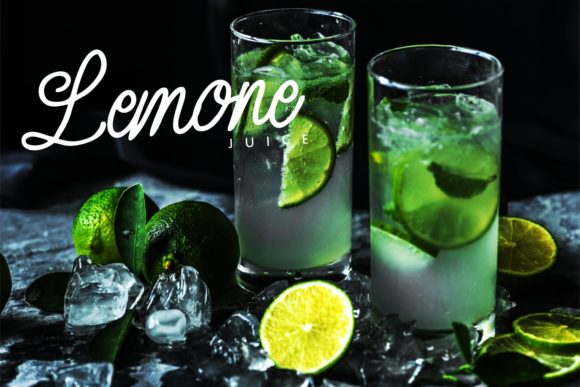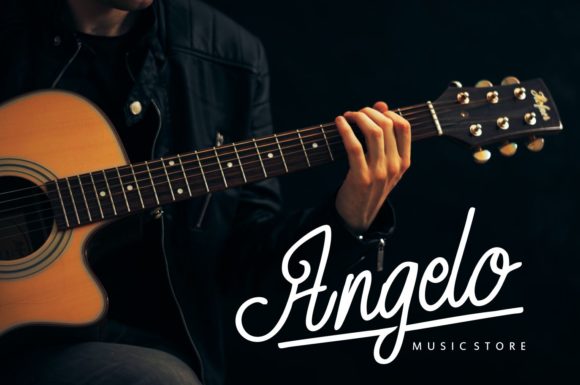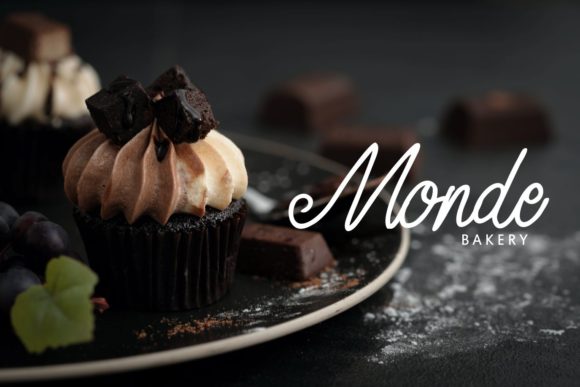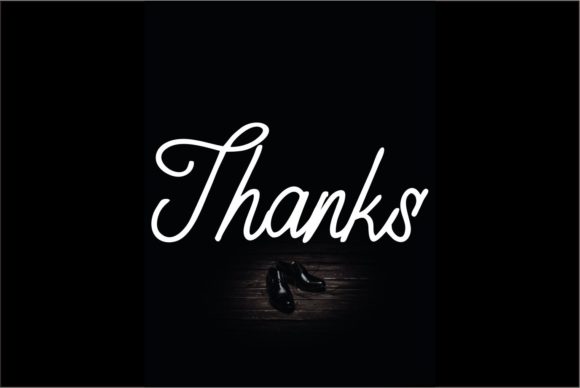
Introduction to Seventy Font
Remember the moment when you stumble upon the perfect font that elevates your entire design project? It’s like finding a hidden treasure that adds a touch of magic to your creative work. For designers, discovering the right font can be a game-changer. It’s the difference between a good design and an exceptional one.
That’s exactly what happens when you come across the Seventy Font. This stunning monoline script font is a true gem, offering a unique twist that adds a bold flavor to any design project. With its high-quality design, Seventy Font is a valuable resource for designers looking to create something truly special. Whether you’re working on a free download or a paid project, this font is sure to impress.
One of the things that sets Seventy Font apart is its versatility. You can use it on a transparent background or pair it with other design elements to create a cohesive look. Its creative possibilities are endless, making it a must-have for any design project.
Key Features of Seventy Font
- High-quality, professional design suitable for a creative project, making it an excellent design resource.
- Seventy Font offers a transparent background, enabling seamless integration with various design elements.
- The font size is 70, providing a unique and distinctive visual identity for any project.
- Seventy Font features a high-resolution design, ideal for printing and digital applications, with a resolution of 300 DPI (dots per inch).
- Its creative and modern design makes it an excellent choice for various design projects, from branding to editorial content.
Honest Review: Seventy Font
I recently had the chance to work with the Seventy Font and I must say it was a game-changer for my creative project. This font has been a reliable design resource, offering a high quality and versatile look that’s perfect for any project.
One of the things that I appreciate about the Seventy Font is its flexibility. It comes in a variety of styles and weights, making it easy to adapt to any design need. Plus, the transparent background option is a huge plus when working with complex designs.
- High-quality design with a unique aesthetic
- Flexible and versatile, with various styles and weights
- Transparent background option for seamless design integration
- May not be suitable for very small text sizes due to the bold design
- Lack of customization options for advanced users
Overall, I’m impressed with the Seventy Font and would highly recommend it to designers looking for a reliable and high-quality design resource. Its flexibility and transparent background option make it a great choice for any creative project.
Seventy Font
Seventy Font is ideal for a variety of creative projects, including graphic design, branding, and digital art. Its transparent background makes it easy to use in combination with other design elements.
To get the most out of Seventy Font, be sure to experiment with different font sizes, colors, and combinations. You can also use it in conjunction with other design resources, such as images and shapes, to create unique and eye-catching designs. Additionally, take advantage of its free download to access it in all your projects.
Alternatives to Seventy Font
Montserrat compares to Seventy Font in its modern and sleek design, but it has a more extensive character set and is highly customizable. It is a great alternative for designers looking for a versatile and high-quality font.